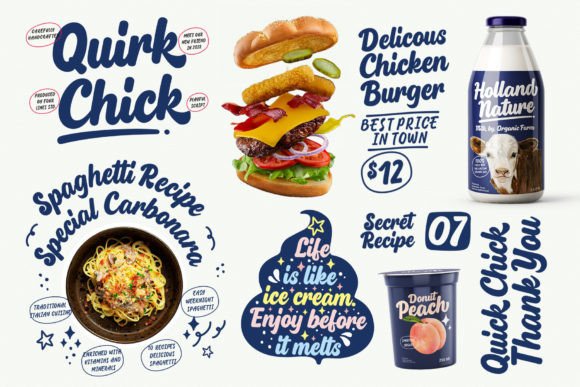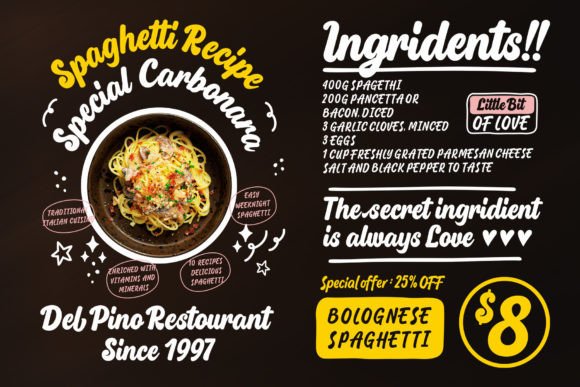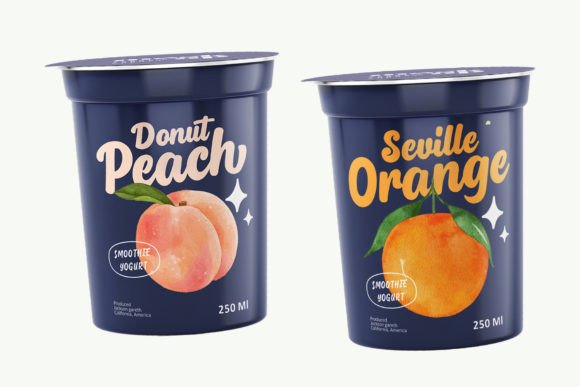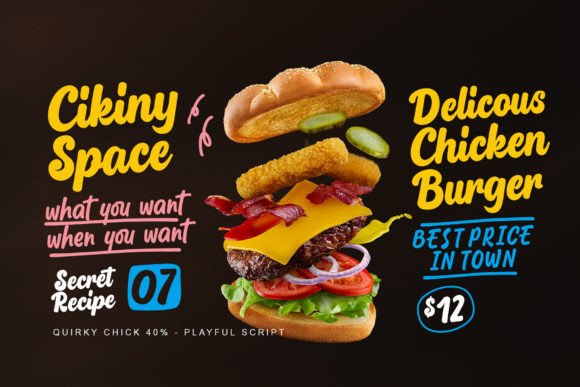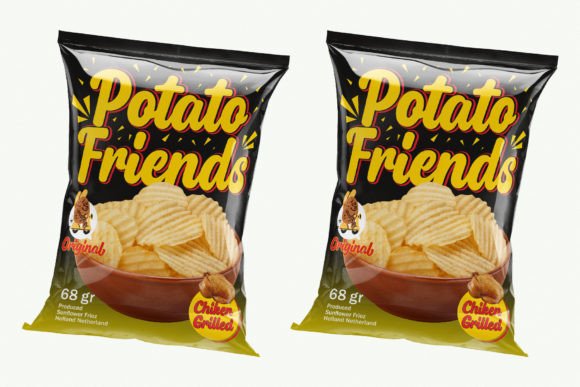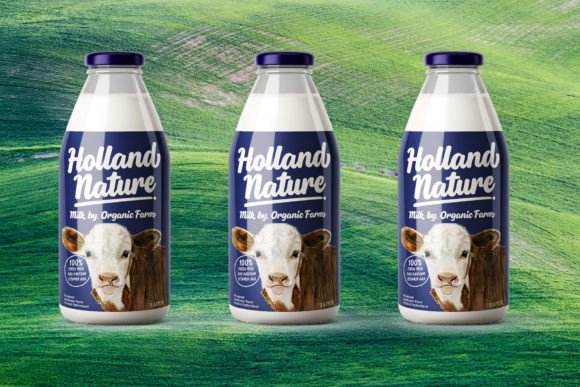
Introduction to Quirk Chick Font
As a graphic designer, there’s nothing quite like the thrill of a blank canvas, waiting to be transformed into a masterpiece. You stare at the screen, a spark of creativity igniting within you, and suddenly, the perfect font appears. For many of us, that font is the Quirk Chick Font – a game-changing design resource that brings our most imaginative ideas to life.
But what sets the Quirk Chick Font apart from the rest? Its versatility and flexibility make it the perfect tool for logos, branding, invitations, packaging, and so much more. With its transparent background and high-quality design, you can create eye-catching designs that leave a lasting impression on your audience. Whether you’re working on a personal project or a client’s creative brief, the Quirk Chick Font is an invaluable asset in your design arsenal.
Key Features of Quirk Chick Font
- Unique, playful design perfect for creative projects and personal use
- High-quality, professional font suitable for various design resources
- Supports transparent background, ideal for designs requiring layered elements
- Comes in 4 different font styles (Regular, Bold, Italic, and Bold Italic) for added versatility
- Resolution-independent, ensuring crisp and clear text display regardless of output size
Honest Review: Quirk Chick Font
As a designer, I’m always on the lookout for unique and creative design resources to elevate my projects. The Quirk Chick Font has caught my eye, and I’m excited to share my honest review.
- ✨ The font’s quirky, handwritten style is perfect for adding a touch of personality to creative projects, such as social media graphics, blog posts, and advertisements.
- ✨ The high-quality design ensures that the font looks crisp and clear, even when used on a transparent background.
- ⚠️ The font may not be suitable for formal or professional projects, as its whimsical style can be distracting in certain contexts.
- ⚠️ Some users may find the font’s irregularities and imperfections overwhelming, especially when used in large blocks of text.
Overall, the Quirk Chick Font is a great addition to any designer’s arsenal. While it may have some limitations, its unique style and high-quality design make it a valuable resource for creative projects. I’d definitely recommend it to anyone looking to add a touch of whimsy to their designs.
The Quirk Chick Font is a high-quality design resource ideal for creative projects requiring a unique touch. With a transparent background, this font is versatile and easy to use in various design applications.
Tips for Getting the Most Out of Quirk Chick Font
To maximize the effectiveness of this font, experiment with different font sizes, colors, and combinations with other design elements. This will help you achieve a unique and eye-catching visual effect.
The Quirk Chick Font is ideal for creative projects such as blog titles, social media graphics, and print materials. Its high-quality design and transparent background make it a valuable resource for designers and non-designers alike.